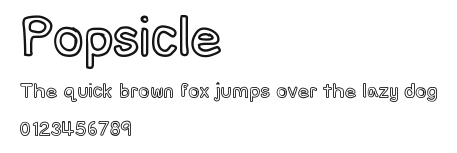
• Font Name: Popsicle
About Popsicle.ttf
Popsicle.ttf is a modern, elegant sans-serif font designed for ultimate readability and visual harmony. Perfect for branding, headlines, web design, and print materials.